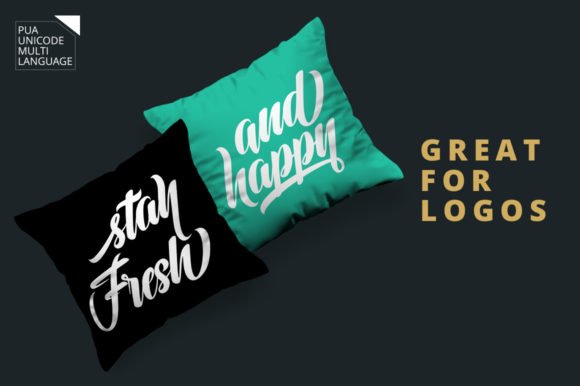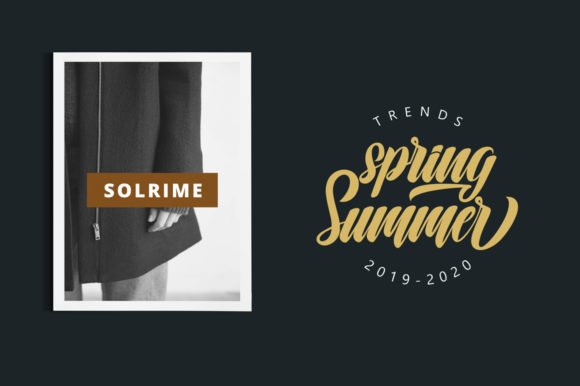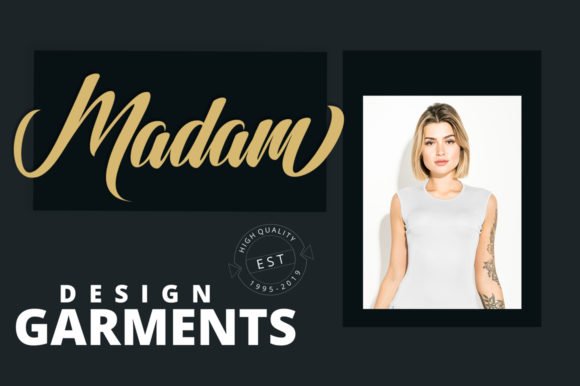
Hunting Font
Let’s go hunting! This amazing and unique script will turn any design idea into a true standout. Add this lovely freebie to your creations and take your designs to the next level!